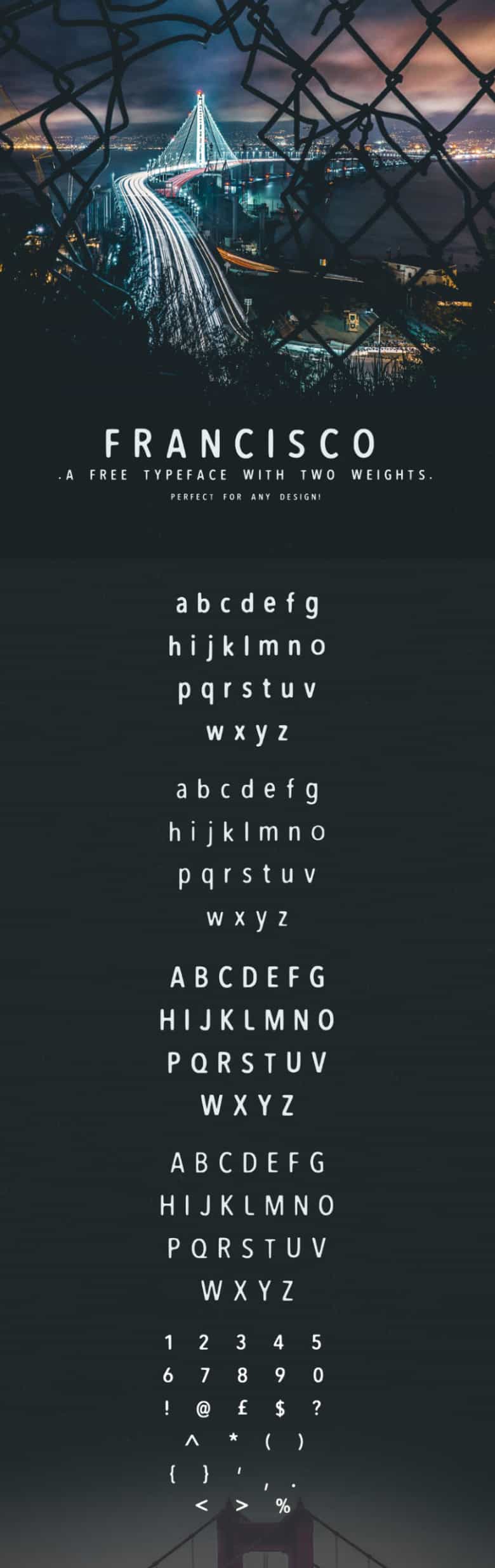
Discover Francisco Font Free, part of the Display collection—a versatile and unique font perfect for adding a personal touch to your projects. Download it for free and enjoy crafting designs with style, from invitations to social media posts. This font is available exclusively for personal use, giving you the freedom to create without limits. Unlock your creativity with Francisco Font Free today!
The Francisco font free that we have shared here has been derived from the photographs that were shot by Pierre Rougier where there are two types of uniques available for your use. Like some of the most popular fonts, simplicity defines Fransisco and therefore it applies well as headlines, branding on apparels or posters, and in large or small formats focused on a vintage or retro logotype.